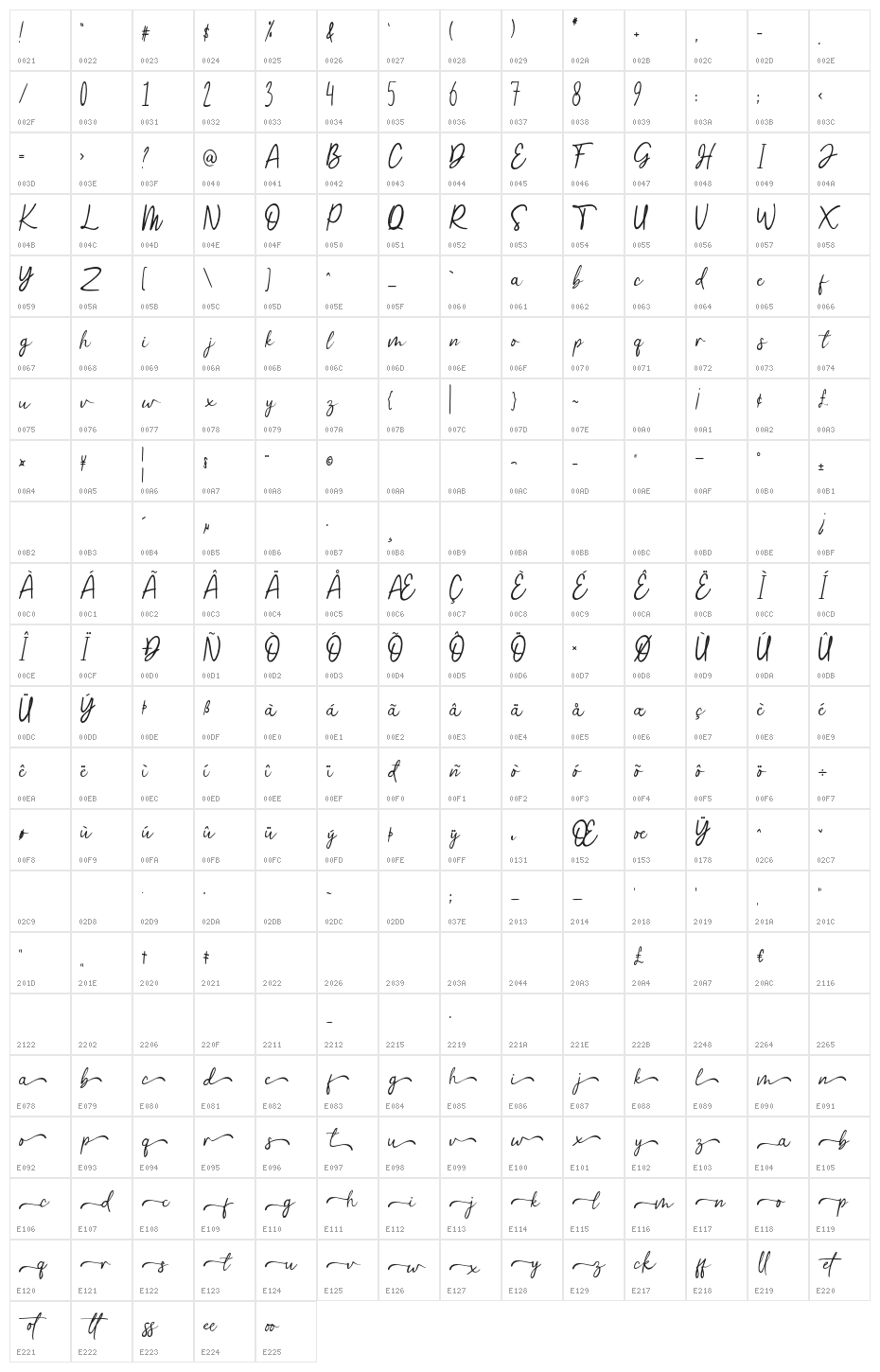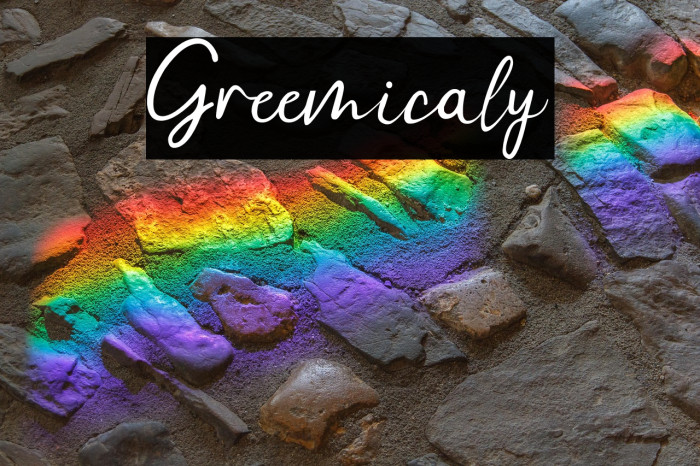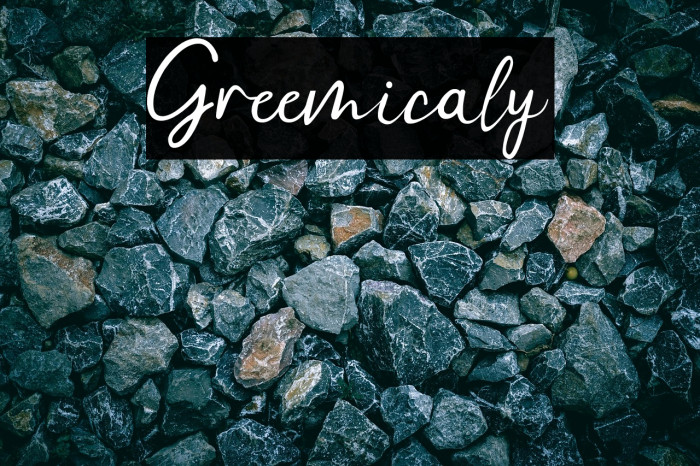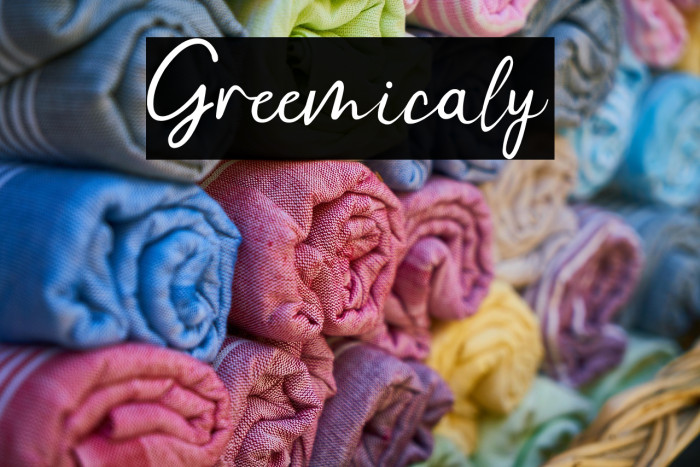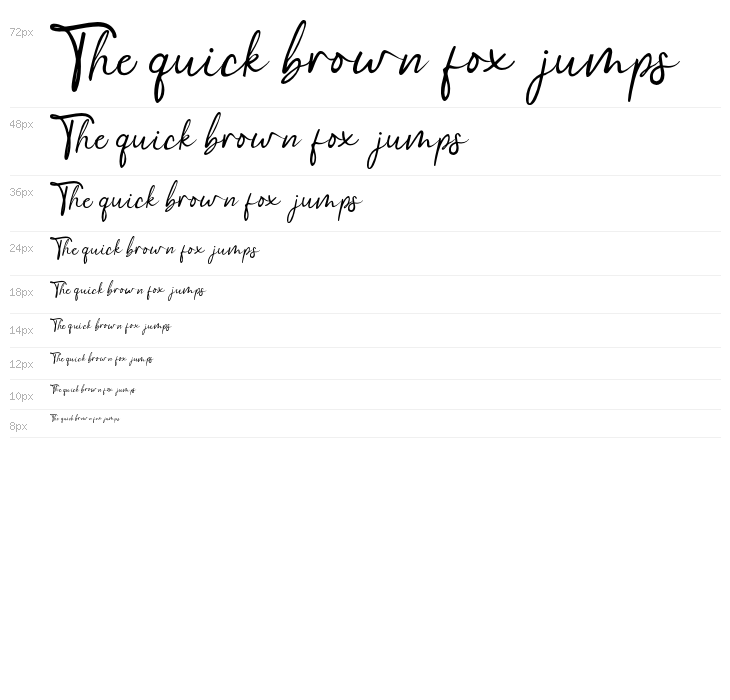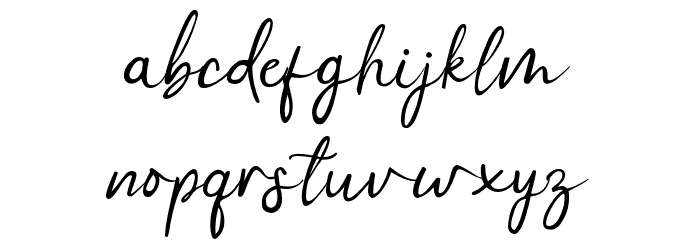
Greemicaly Font
Greemicaly Description
This font features a lively and dynamic script style, characterized by its fluid and cursive letterforms. The uppercase letters are bold and slightly slanted, giving a sense of motion and elegance. The lowercase letters maintain a consistent flow, with smooth connections between characters, enhancing readability while preserving a handwritten feel. The numerals are clear and distinct, matching the overall style with a slight slant. Special characters are creatively integrated, maintaining the playful and artistic essence of the font. This typeface is perfect for projects that require a personal and artistic touch, such as invitations, greeting cards, and branding materials.
| Proposed Projects | Ideal for invitations, greeting cards, branding, and artistic projects. |